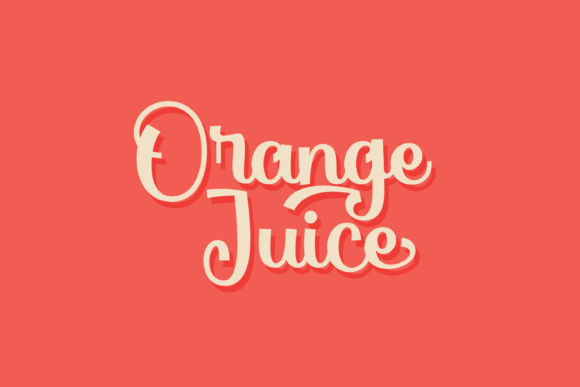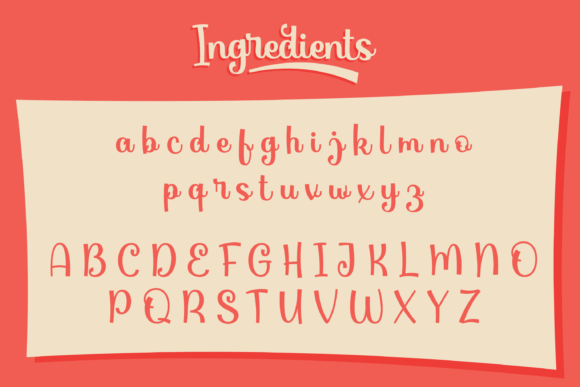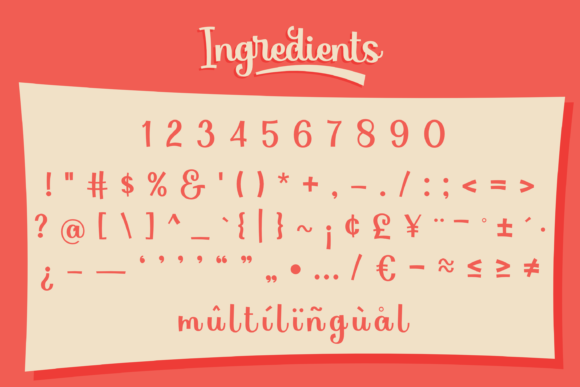
About Orange Juice Font
Orange Juice is an exquisite and playful handwritten font. It is PUA encoded which means you can access all of the glyphs and swashes with ease!